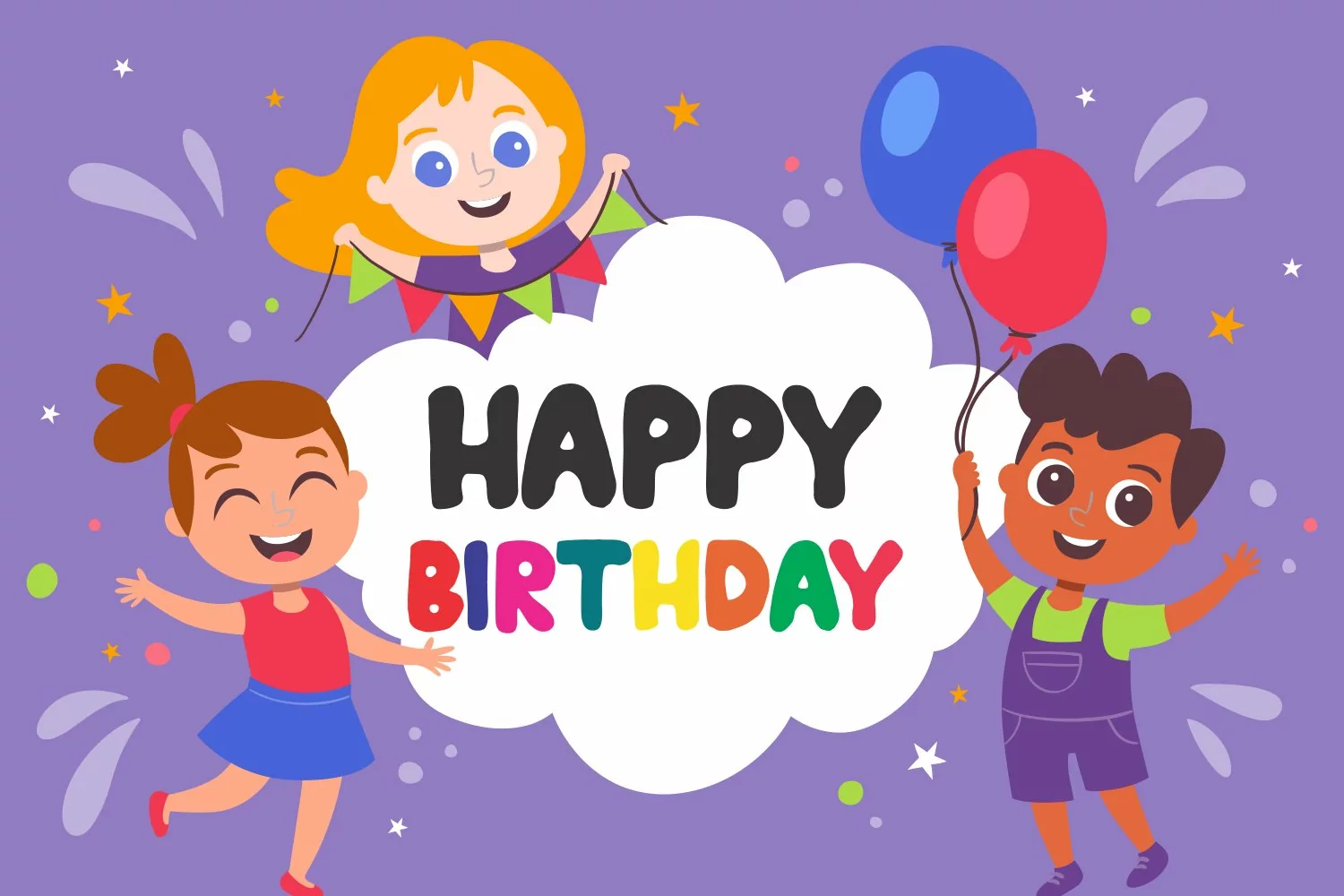
MAGIC WORLD is embodies fun and joyfulness
It is a bold and thick lettered display font.
This font is perfect for children themed designs, especially when combined with bright colors.
No matter the topic, this font will be an incredibly asset to your fonts’ library, as it has the potential to elevate any creation.
Get creative with its childlike playfulness, and use it to brighten up any kids and school project!